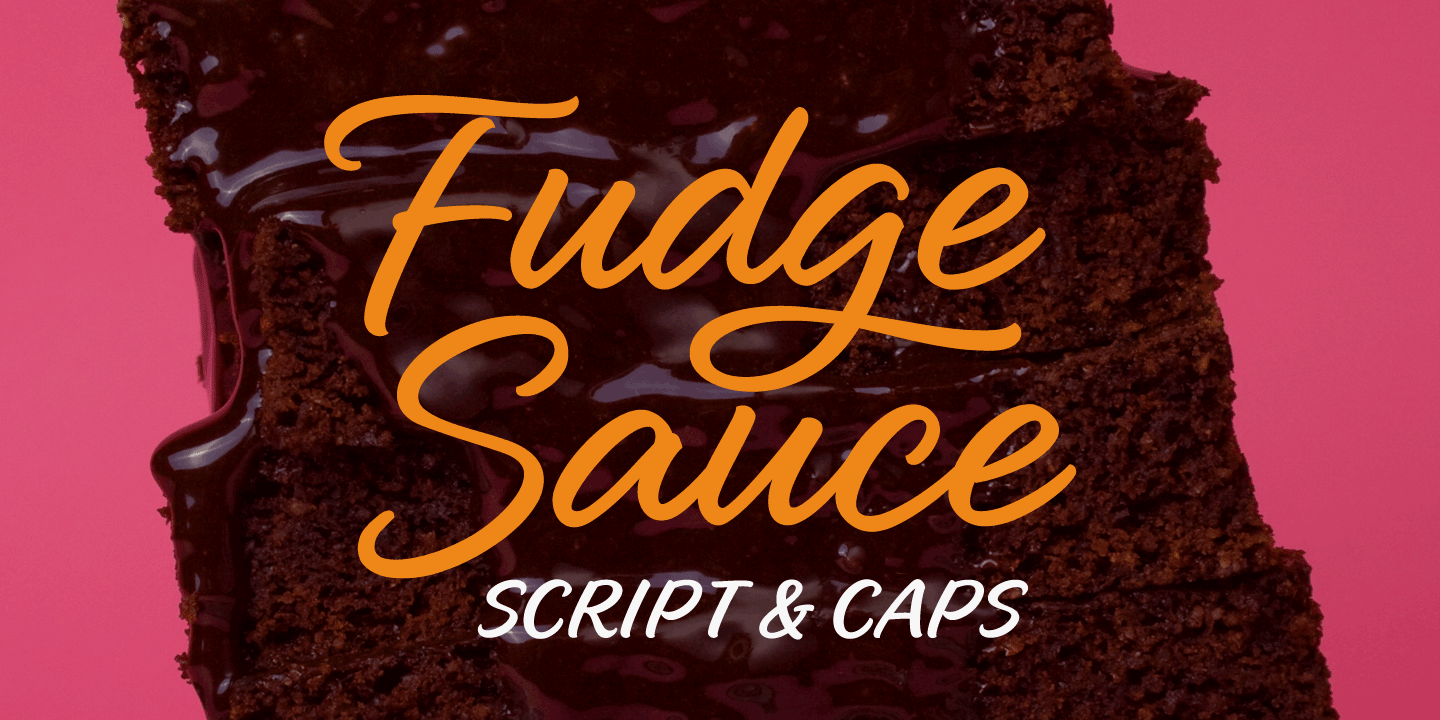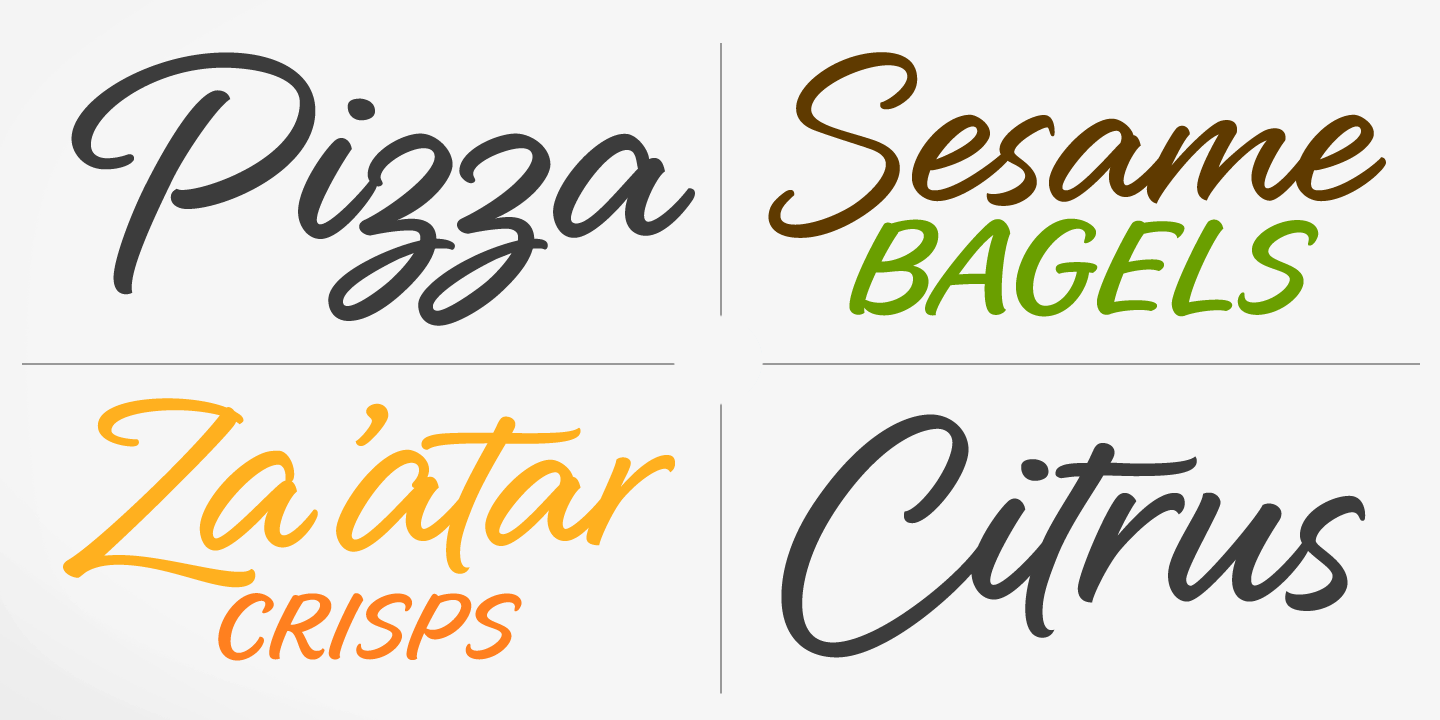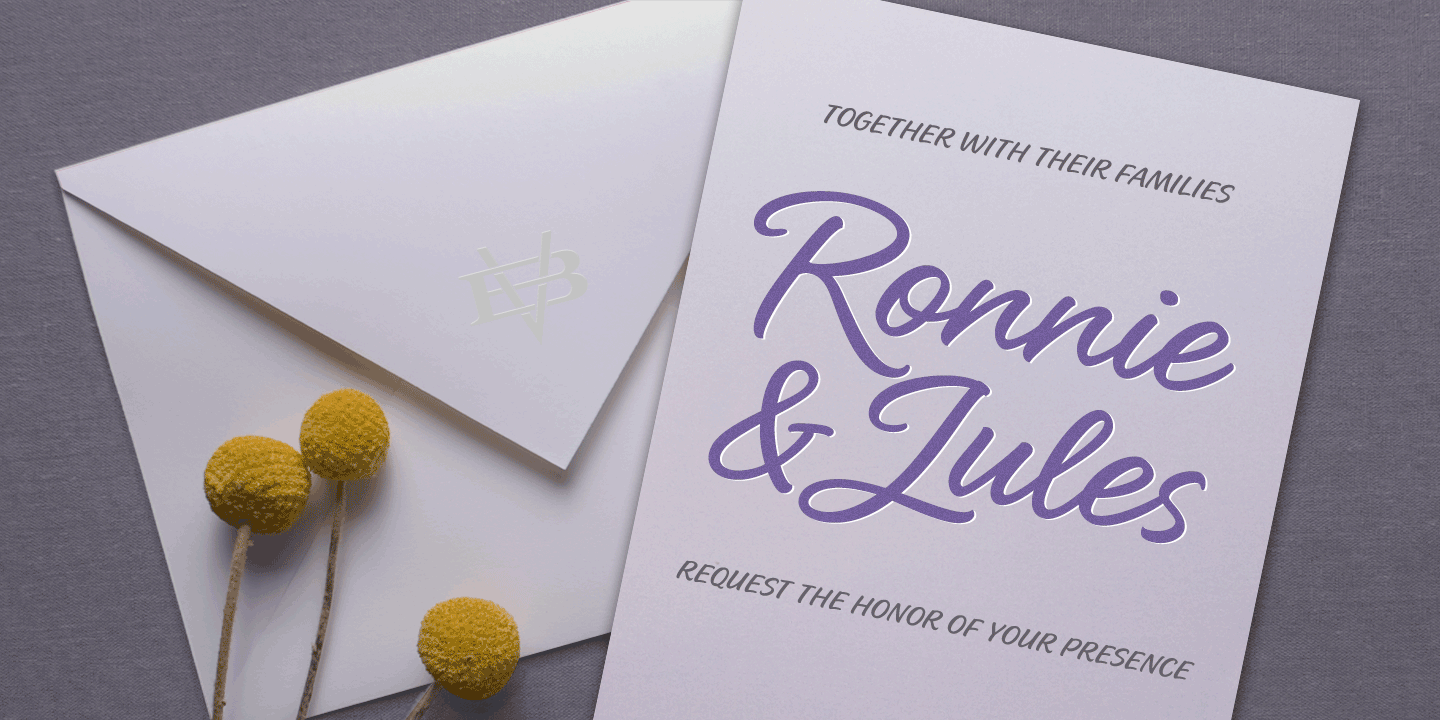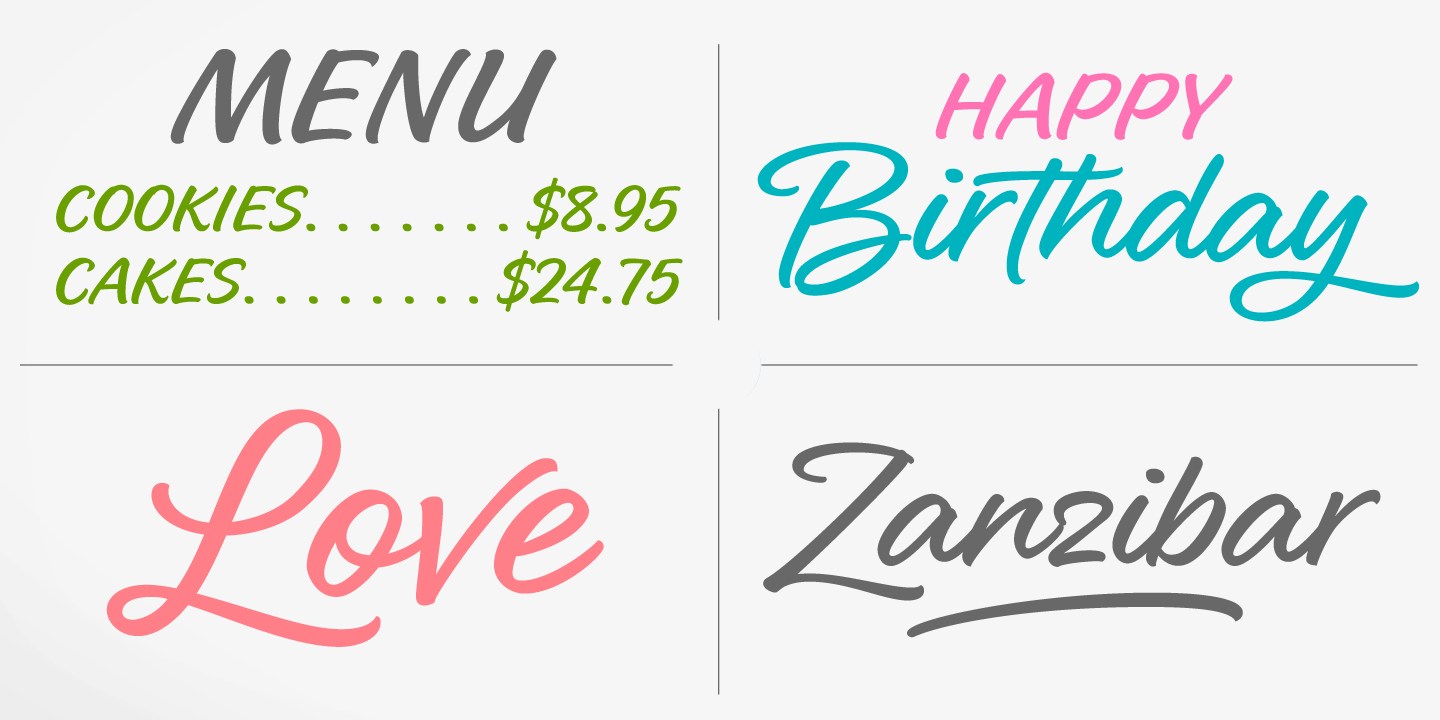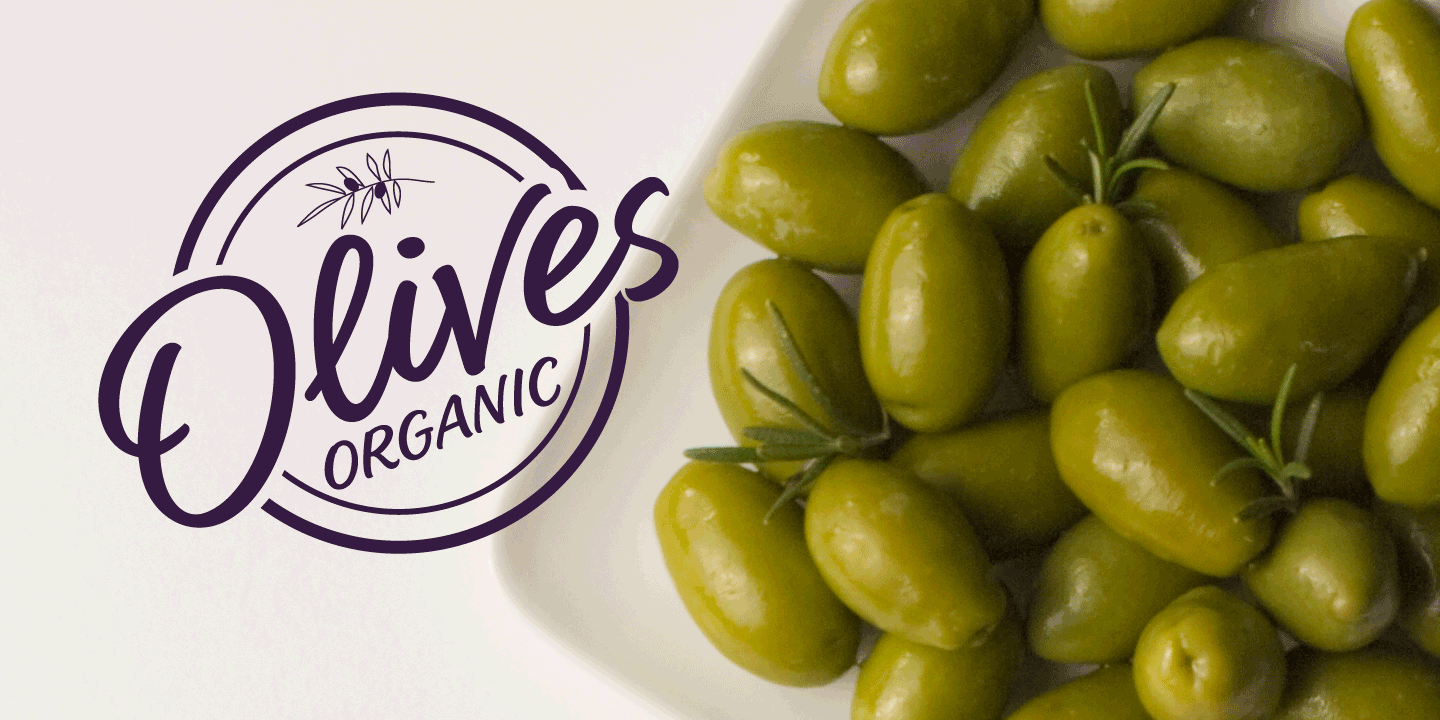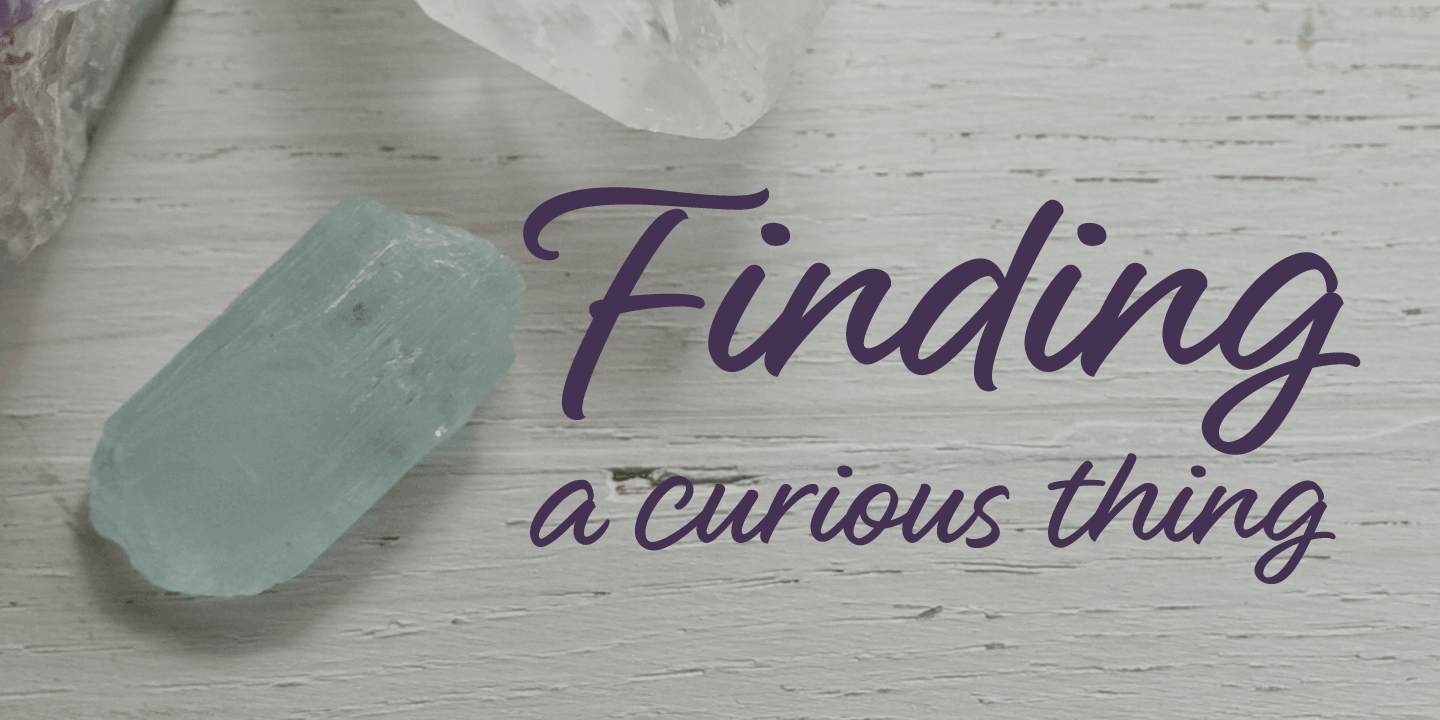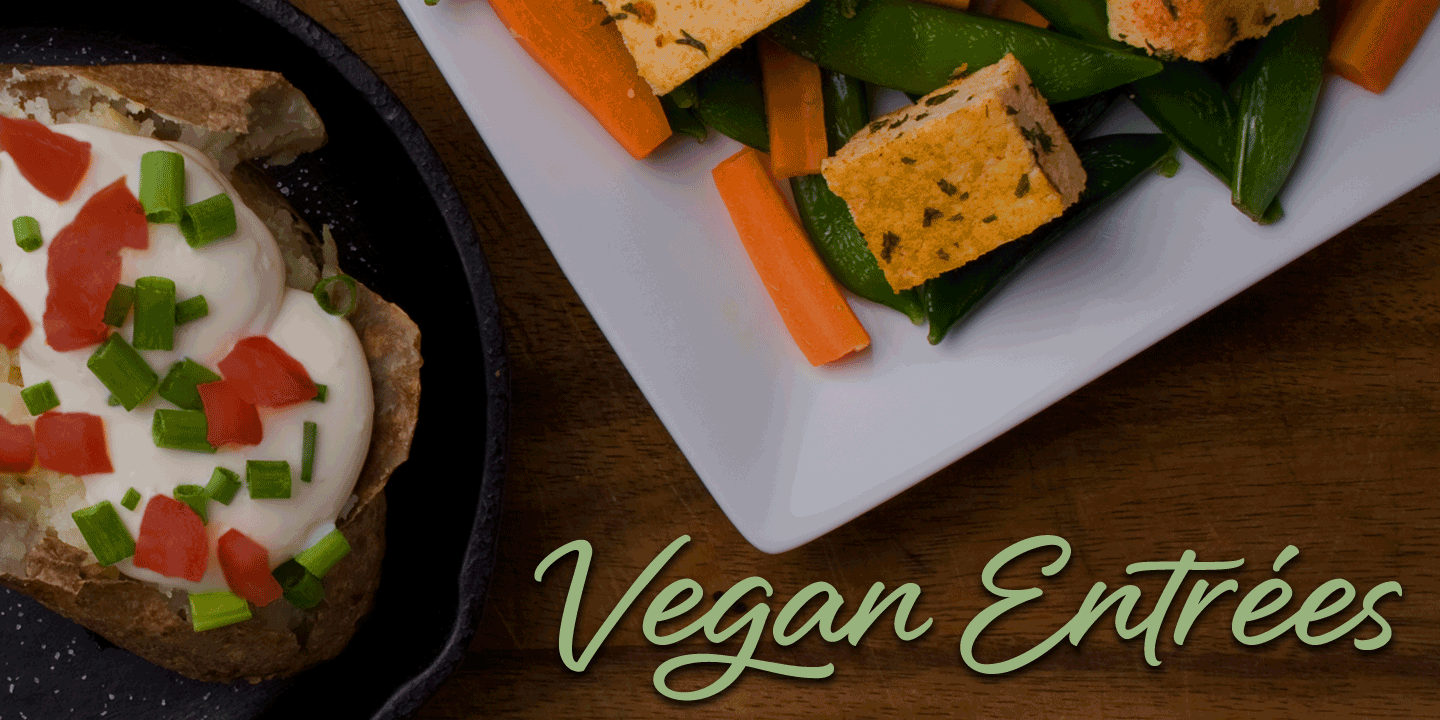
Fudge Sauce
Fudge Sauce (Script) contains the following opentype goodness:
Contextual Alternates
Let's start with the starting and ending lowercase letters! Sentences with only lowercase typically need some oomph. The starting lowercase letters add impact and balance. Lastly, the lowercase endings finish words off nicely.
The lowercase L gets an entry stroke where needed to add balance.
Swashes
Swashes can be turned on and you shouldn't have to worry about collisions. If in a rare situation you get a swash that doesn't play well with others, just highlight it and turn off swash for that character. You can also just drop in swashes manually.
Ligatures
Ligatures will add variation with some common double letter combinations. Turn on Ligatures and swashes and the double lowercase t will come alive!
Alternates
There are alternates that can be manually selected from the glyphs palette. Highlight a letter and check to see if there are any alternates that can be applied.
Stylistic Alternates
With stylistic alternates on, you get a traditional double story uppercase and lowercase Z.
Ornaments
There's a few brushy swoops. These need to be placed manually in a graphics program.
Fudge Sauce Caps is an all caps font with basic ligatures in opentype.